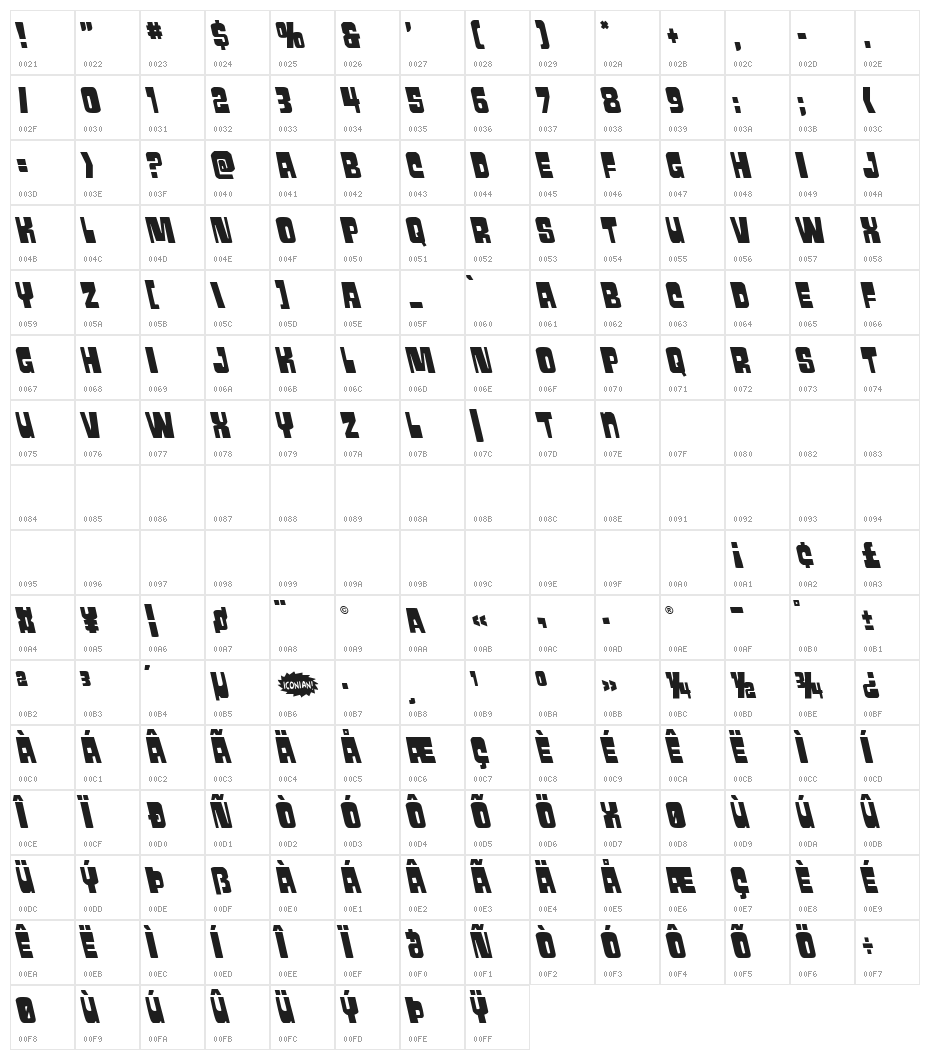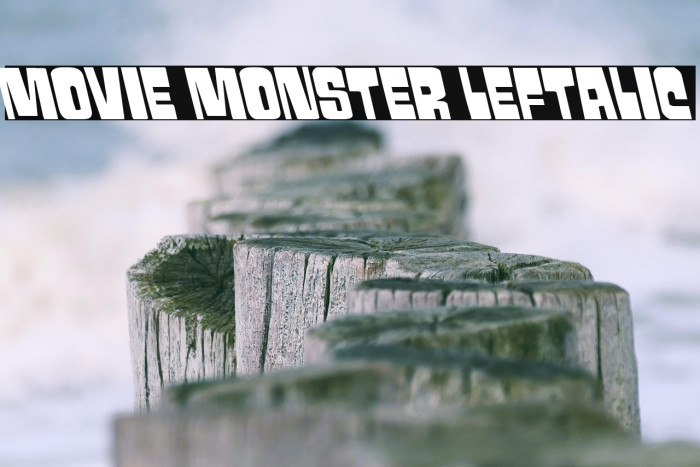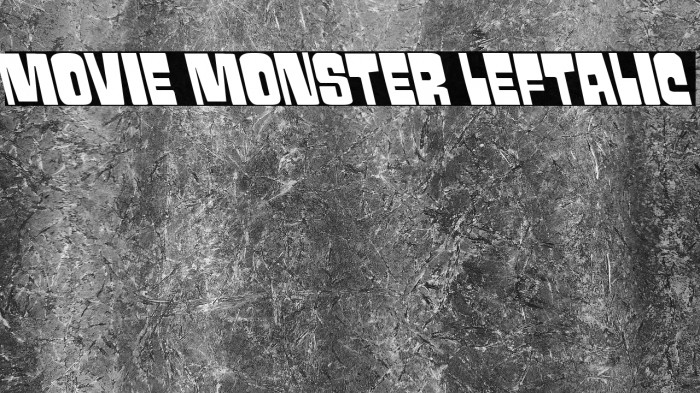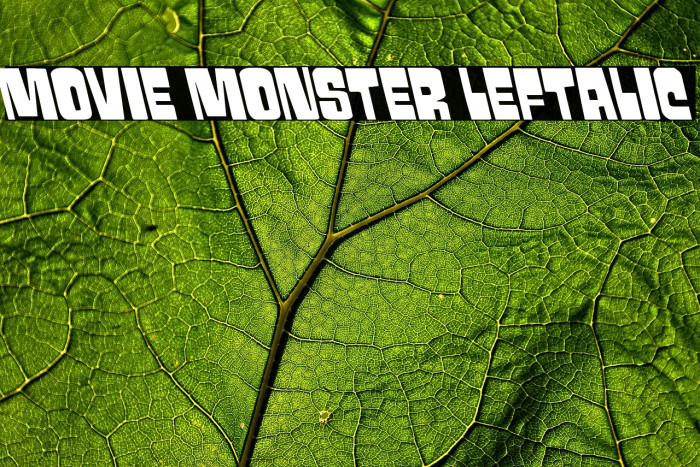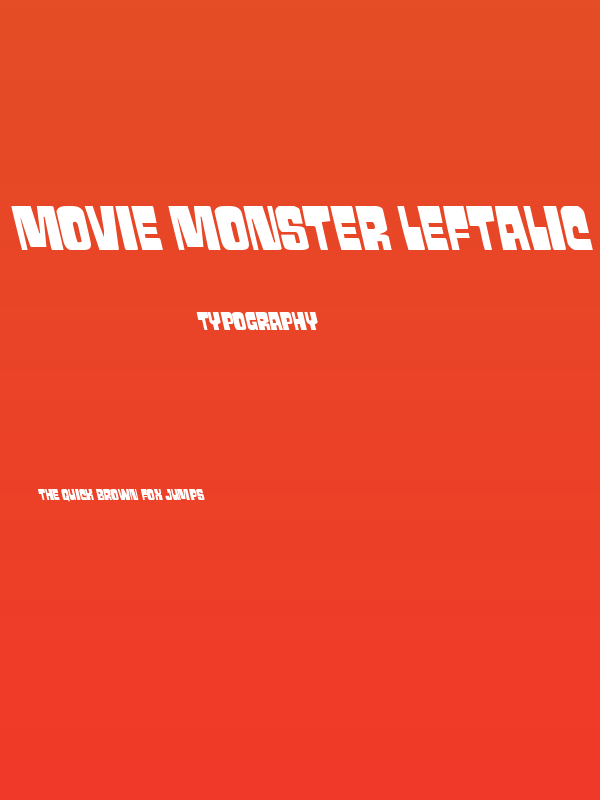
Movie Monster Leftalic Font
Movie Monster Leftalic Description
This font features a bold and dynamic style with a strong presence. The characters are heavily weighted, with a distinct slant to the left, giving it an italicized appearance. The design is blocky and geometric, with sharp angles and a slightly condensed form. The uppercase and lowercase letters maintain a consistent style, while the numerals and special characters are equally bold and impactful. This font is ideal for making a statement, with its eye-catching and assertive design.
| Proposed Projects | Perfect for movie posters, video game titles, or any project needing a bold, impactful typeface. |